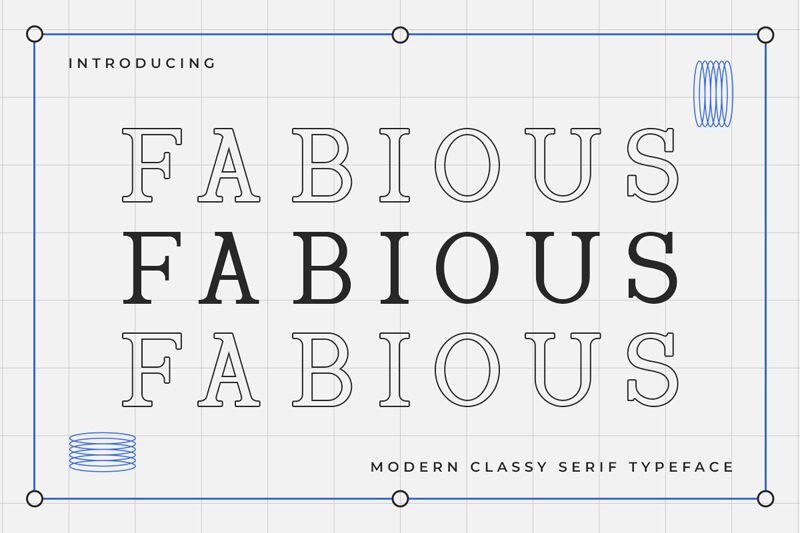
Fabious font by Kong Font elegantly adds structure and sophistication to text, thanks to its neatly stroked letters. The sleek and modern design showcases a classic feel suitable for contemporary applications. Headers, subheaders, or text body; this sleek typeface gives all an elegant look.
Professional and refined, Fabious can be used for posters, web and print designs, business cards, magazine covers, and branding projects. The font has little to no limitations, except for your imagination. It is also recommended for ads, social media posts, and blogging.